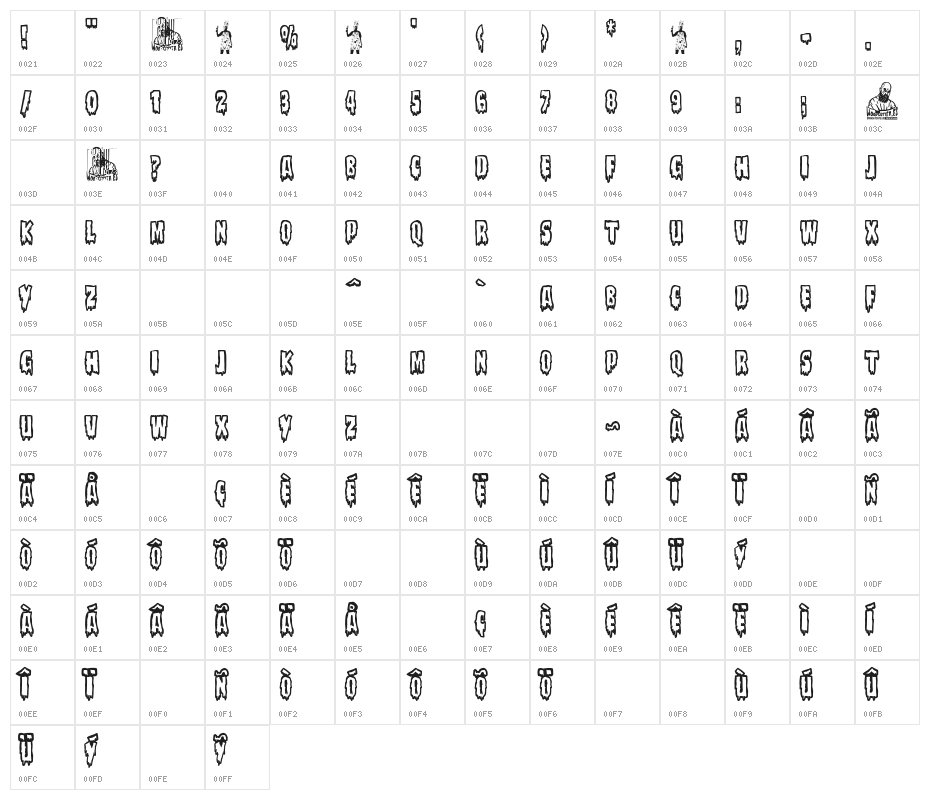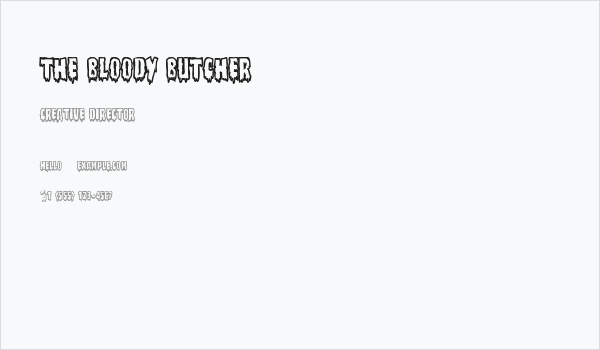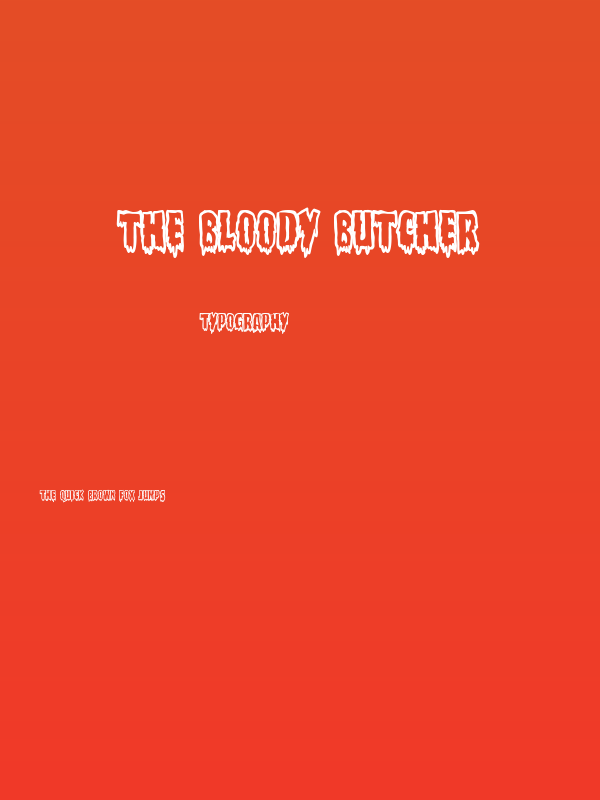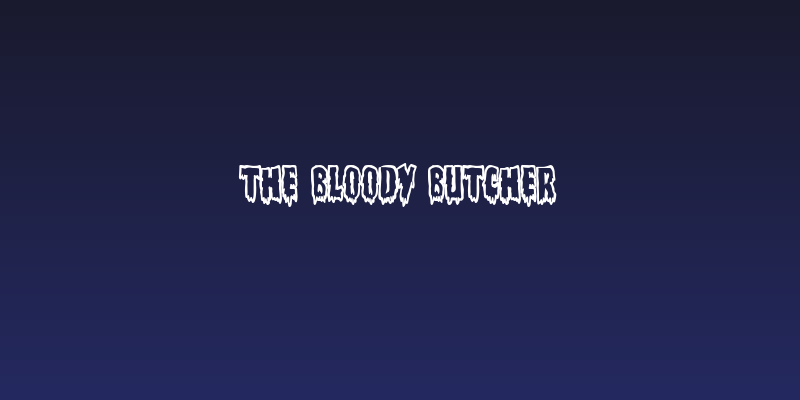
The Bloody Butcher Font
The Bloody Butcher Description
A bold, decorative display font with a dripping, irregular outline reminiscent of horror or gore themes. The characters are uppercase only, with thick strokes and uneven edges, giving a hand-drawn, distressed appearance. The numerals and symbols follow the same style, enhancing the overall eerie effect.
| Overall Style | Decorative, Horror, Grunge |
| Use Case | Headlines, Posters, Logos, Themed Graphics |
| Proposed Projects | Halloween posters, horror movie titles, haunted house flyers, themed party invitations, graphic novels, video game titles. |